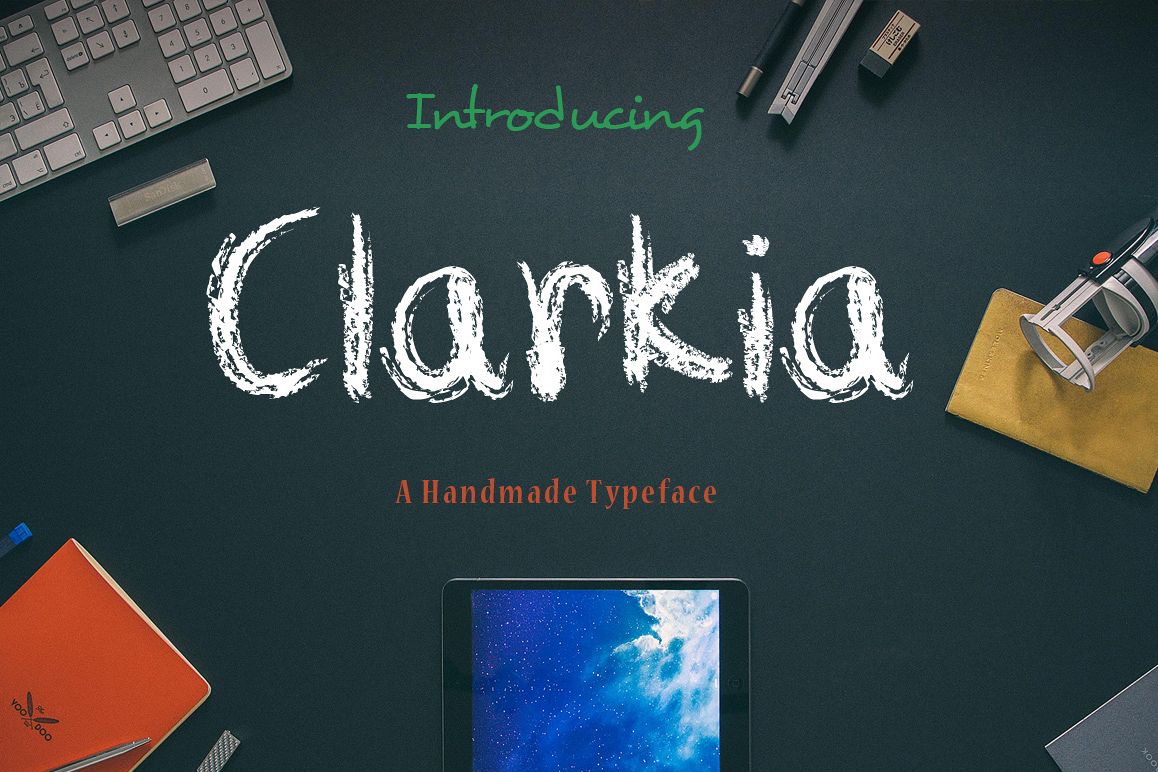
Introducing Clarkia!
Clarkia is a new & modern handmade font. Clarkia is perfectly suited to stationery, logos, t-shirt, paper, print design, website header, photo frame, flyer, music cover, poster, image slider and much more.